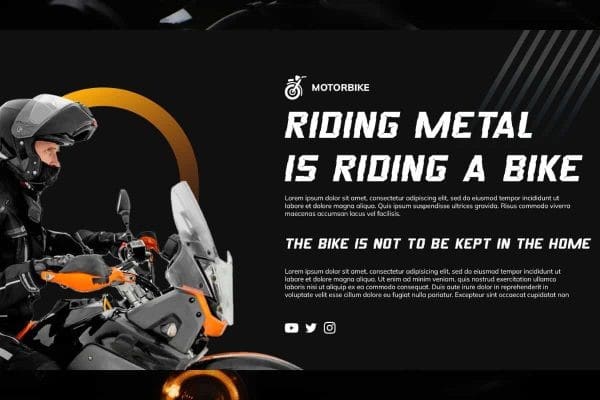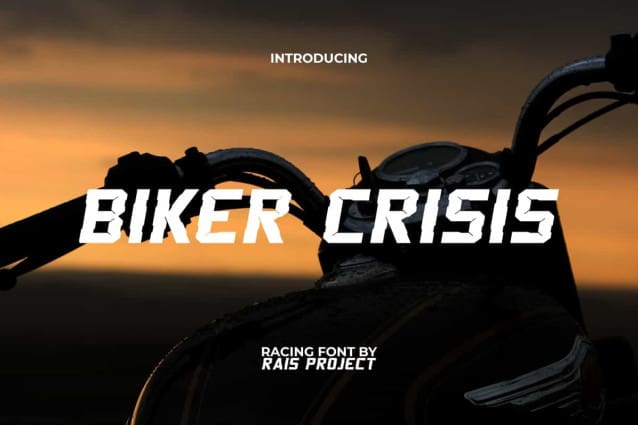
Biker Crisis Font
Biker Crisis Font is a bold unique racing display font with an amazing unusual decorative style by RaisProject Studio. This font has a thick appearance with thin lines inside the letters which makes it look like a tire. It will be good for any designs, such as stationery, signage, advertisement, brand image, cover, custom design, label, marketing material, poster, product packaging, quotes, website page, and more!
Biker Crisis Font includes a full set of ALL CAPS for Uppercase and Lowercase Letters, Numerals, and large range of Punctuation. This cool font with a racing vibe will be suitable for various industries, such as automotive, fashion, cafe, sports, game, event or festival, printing, publishing, etc.